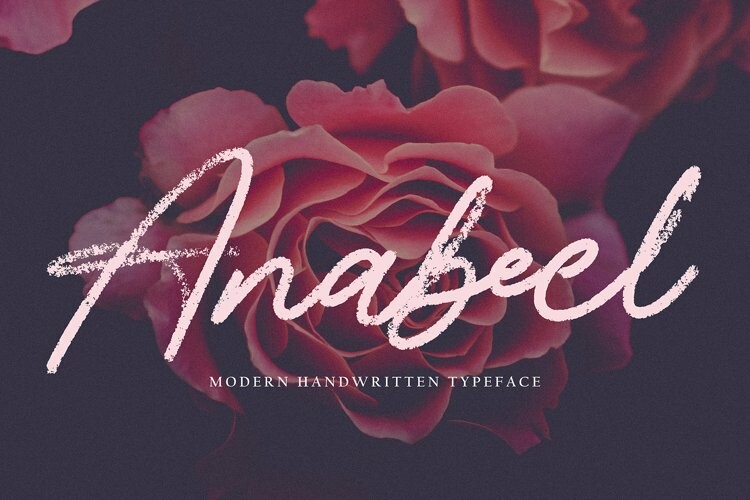
Anabeel Font
Anabeel FontAnabeel with new style, this font will perfect for many different project ex: quotes, logo, blog header, poster, banding, letter, invitation, stationery, etc…